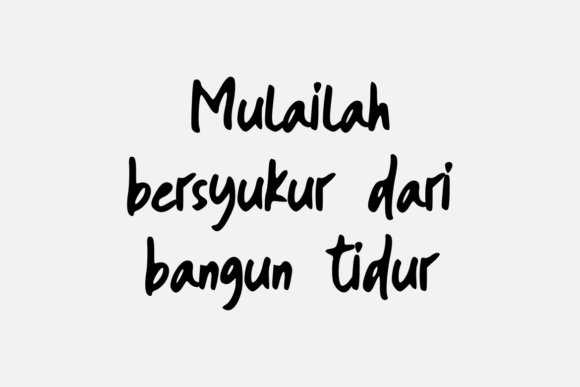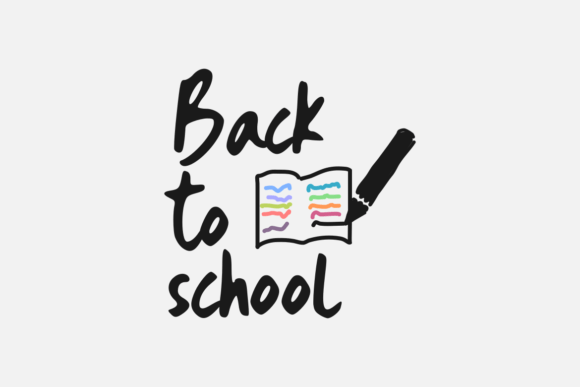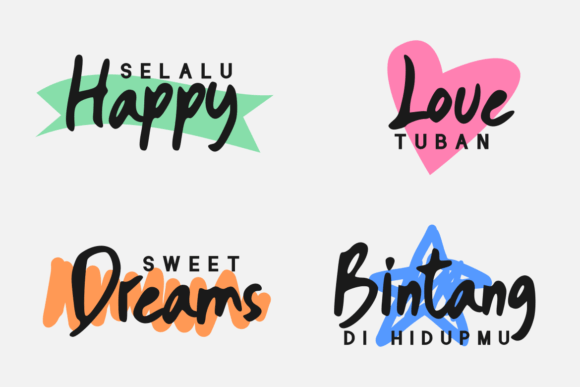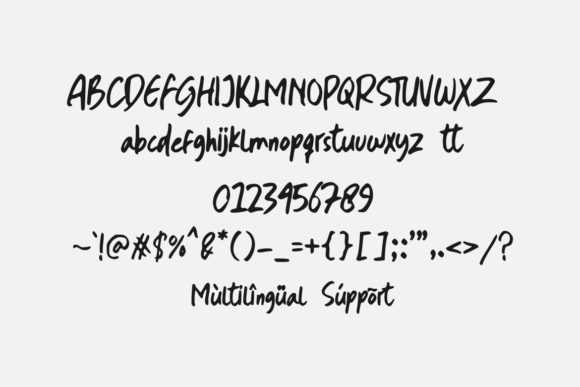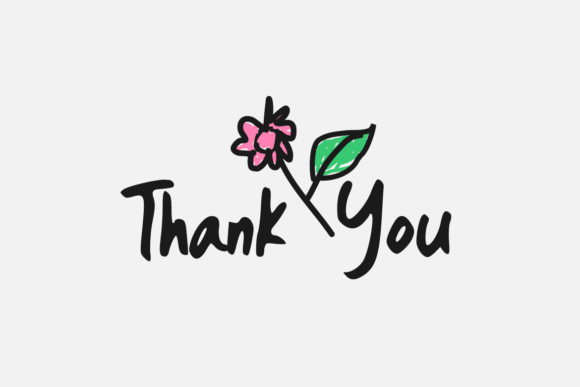
Simple Banget Font
“Simple Banget” is a thick and beautifully flowing handwritten font that adds a touch of casual elegance to any design project. Its smooth and natural strokes create a laid-back, yet stylish appearance, making it suitable for a wide range of creative endeavors.
This font’s simplicity and readability make it a versatile choice for various design projects, including logos, branding, packaging, social media posts, posters, and more. Its original handwritten touch adds a personal and authentic feel to your designs, making them visually appealing and engaging.
The flowing and effortless quality of “Simple Banget” makes it a go-to option for designers seeking a font that combines simplicity with charm. Its thick, bold lines ensure readability, making it suitable for both digital and print applications. Whether you’re creating a trendy logo or crafting a poster with a casual vibe, “Simple Banget” enhances the overall aesthetics of your projects.
Incorporating “Simple Banget” into your designs allows you to infuse them with a touch of originality and warmth. Its easy-to-read style and natural flow make it a valuable asset for designers looking to add a handwritten, personal touch to their work. Embrace the font’s simplicity, and let it enhance your design projects, ensuring they have a unique and inviting appeal.